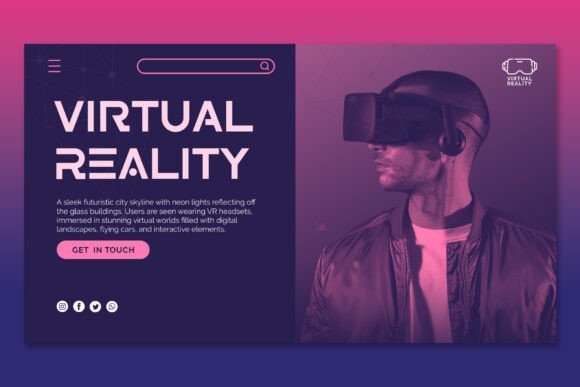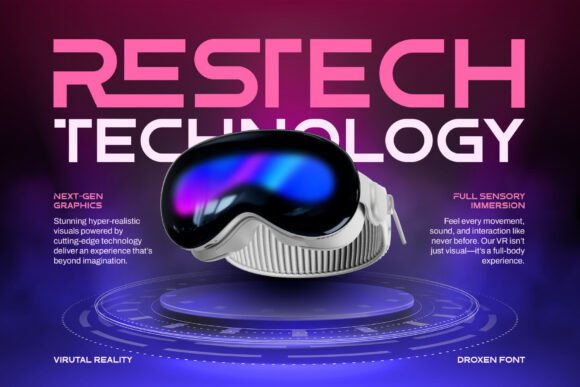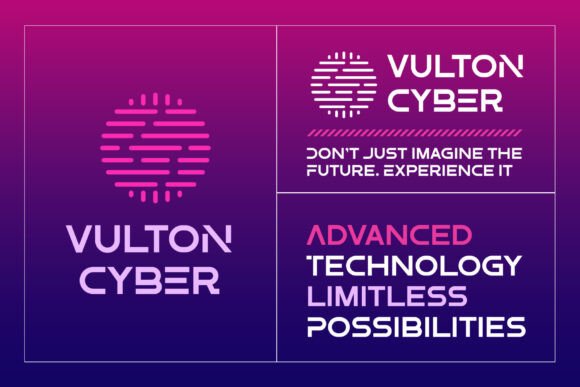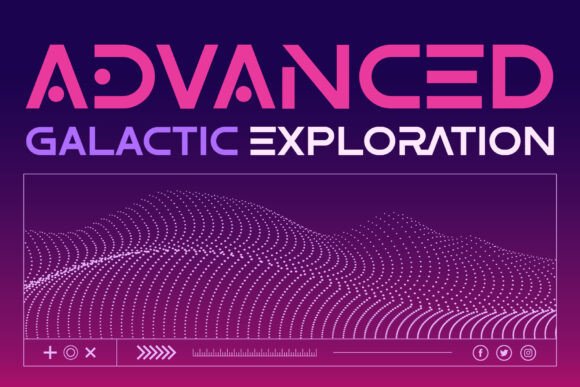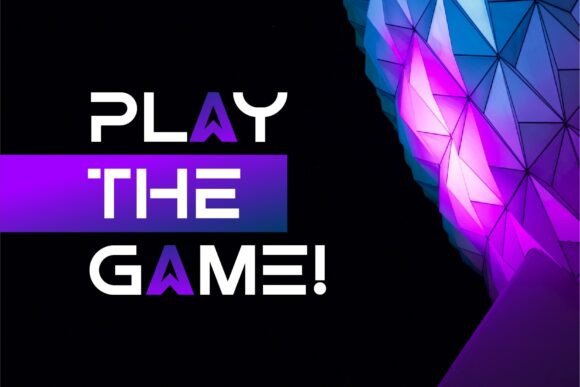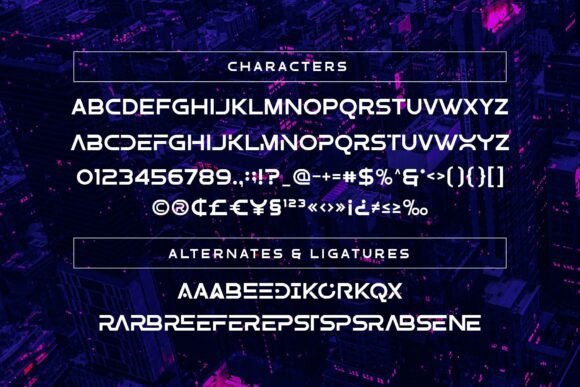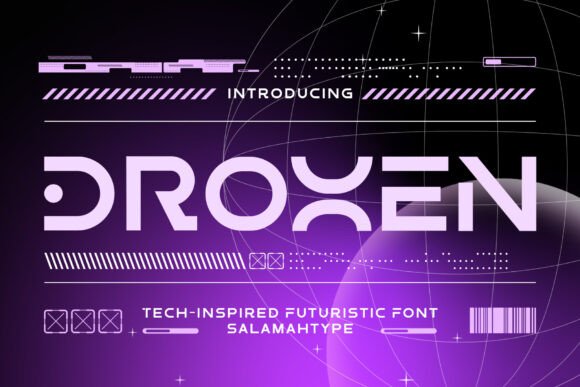
Introducing Droxen Font: The Ultimate Futuristic Typeface for Modern Design
In the world of typography, fonts play a crucial role in defining the aesthetic and tone of a design project. For designers and crafters looking to add a futuristic edge to their work, Droxen Font is an exceptional choice. This bold, futuristic all-caps font seamlessly blends sleek modern design with versatility, making it perfect for a wide range of applications.
Key Features of Droxen Font
Droxen Font boasts a range of features that set it apart from other typefaces. Its stylish uppercase characters are designed to make a statement, while its clean standard lowercase letters provide a sense of balance and harmony. But what truly makes Droxen stand out is its extensive collection of creative alternates and ligatures. These features allow designers to add a unique touch to their work, experimenting with different styles and arrangements to achieve the perfect look.
Perfect for Futuristic Designs
Whether you’re designing a logo, working on branding, crafting eye-catching headlines, or creating digital media, Droxen Font delivers a high-tech, forward-thinking aesthetic that’s sure to impress. Its modern, edgy style makes it the perfect choice for:
- Logos: Add a bold, futuristic touch to your brand identity with Droxen’s striking uppercase characters.
- Websites: Elevate your website’s design with a font that’s both stylish and highly legible.
- Digital Media: Use Droxen to create eye-catching social media graphics, advertisements, and more.
- Branding: Establish a strong brand presence with a font that’s both modern and memorable.
Why Choose Droxen Font?
So why choose Droxen Font over other typefaces? Here are just a few compelling reasons:
- Versatility: Droxen Font is designed to be versatile, making it suitable for a wide range of design projects.
- Modern Style: Its sleek, modern design ensures that your work will look fresh and contemporary.
- High-Tech Aesthetic: Droxen’s futuristic style is perfect for designers and crafters looking to add a high-tech edge to their work.
- Easy to Use: With its clean lines and highly legible characters, Droxen Font is easy to use and works beautifully in a variety of contexts.
Tips for Using Droxen Font
To get the most out of Droxen Font, here are a few tips to keep in mind:
- Experiment with Alternates and Ligatures: Take advantage of Droxen’s creative alternates and ligatures to add a unique touch to your design.
- Pair with Complementary Fonts: Combine Droxen with complementary fonts to create a visually appealing contrast.
- Use for Headlines and Titles: Droxen’s bold, futuristic style makes it perfect for headlines and titles.
In conclusion, Droxen Font is an exceptional choice for designers and crafters looking to add a futuristic edge to their work. With its bold, sleek design, versatile features, and high-tech aesthetic, it’s perfect for a wide range of applications. Whether you’re designing a logo, working on branding, or creating digital media, Droxen Font is sure to deliver impressive results.